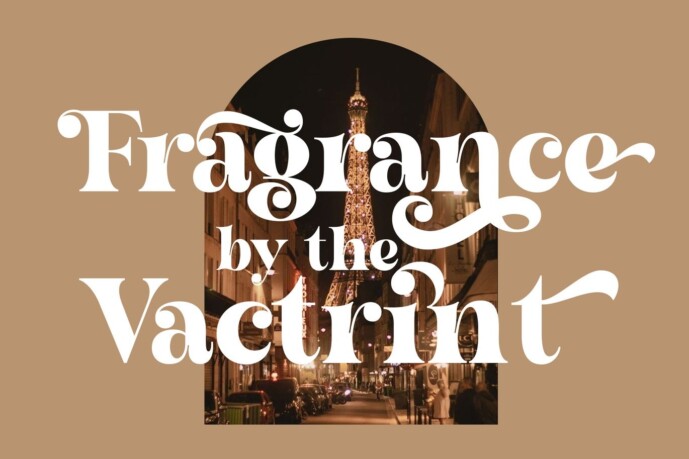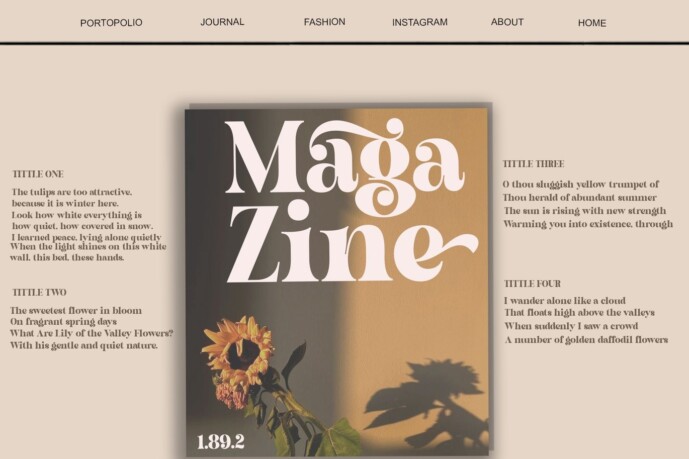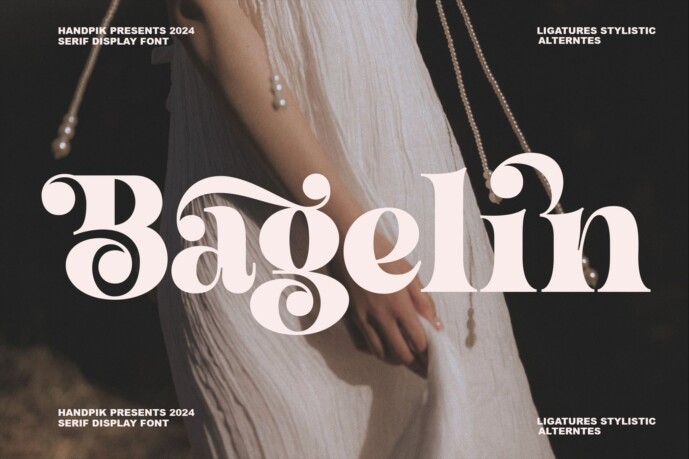
Bagelin Font
Bagelin Font will be perfect for many projects: book, magazines, Logo, branding, photography, quotes, blog header, poster, advertisements, etc.